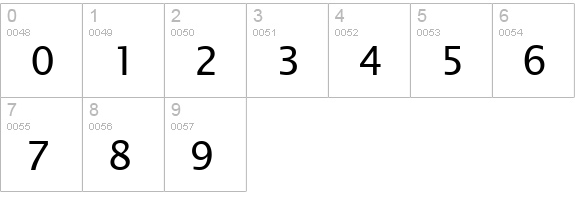
TR Lucida Sans Unicode Font Details
TR Lucida Sans Unicode is a versatile and modern sans serif font that exudes sophistication and elegance. With its clean lines and balanced proportions, this typeface is perfect for a wide range of design projects, from branding to editorial layouts. Its readability and clarity make it ideal for both print and digital applications. What sets TR Lucida Sans Unicode apart is that it is not only stylish and contemporary, but also free to use. This means that you can elevate your designs without breaking the bank. Whether you are working on a personal project or a professional assignment, this font is a valuable addition to your toolkit. You can easily download TR Lucida Sans Unicode for free at FontsMarket.com. Take advantage of this opportunity to enhance your designs with a high-quality font that combines modern aesthetics with accessibility. Elevate your typography game with TR Lucida Sans Unicode today!